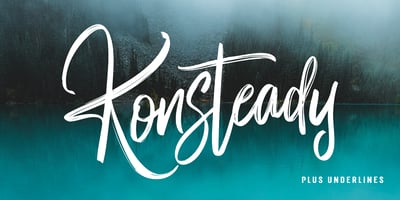
Konsteady Font Family was designed by Yur Lis and published by Stripes Studio. Konsteady contains 2 styles and family package options. Konsteady a new very attractive brushed font with a natural, detailed and perfect texture. Additional Konsteady Underlines. Konsteady is perfect for branding projects, logos, product packaging, posters, invitations, greeting cards, news, blogs, everything including personal charm and more.